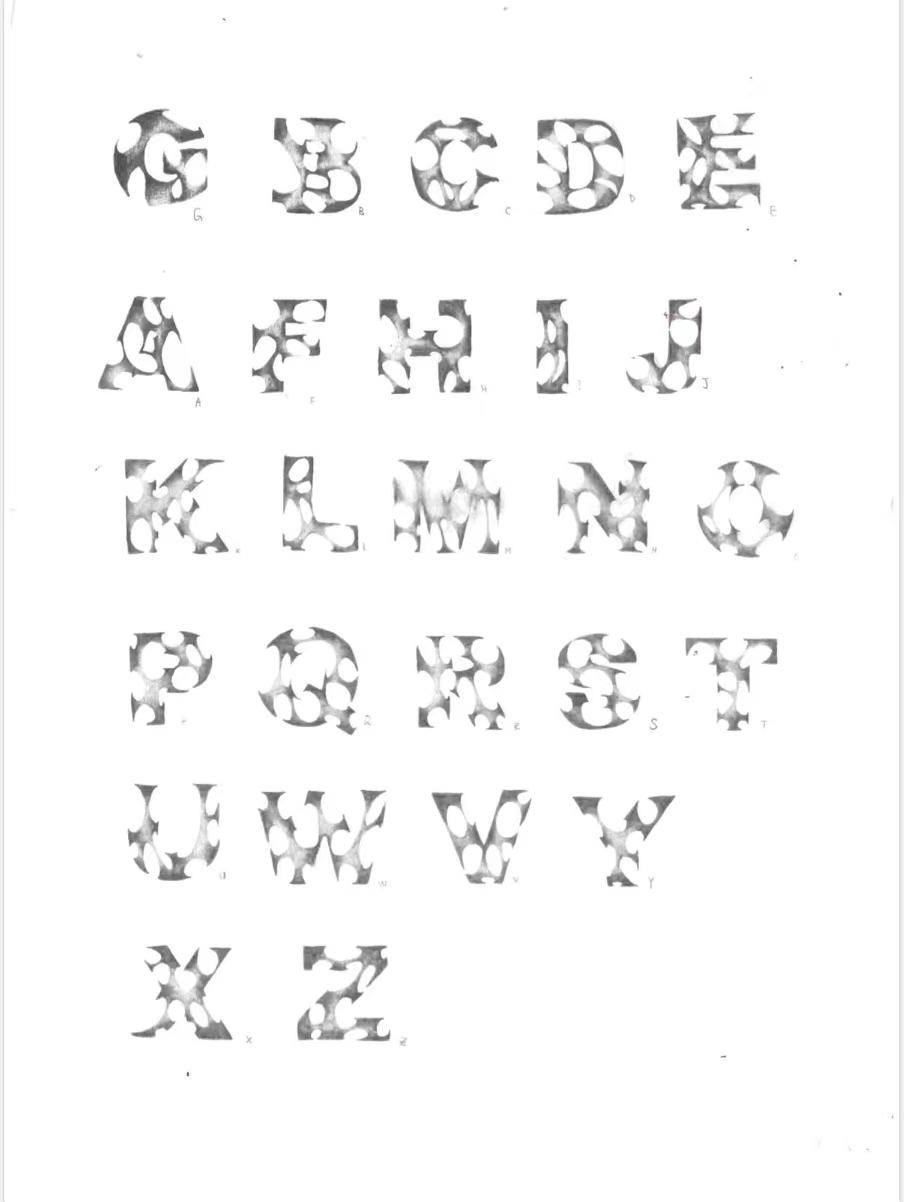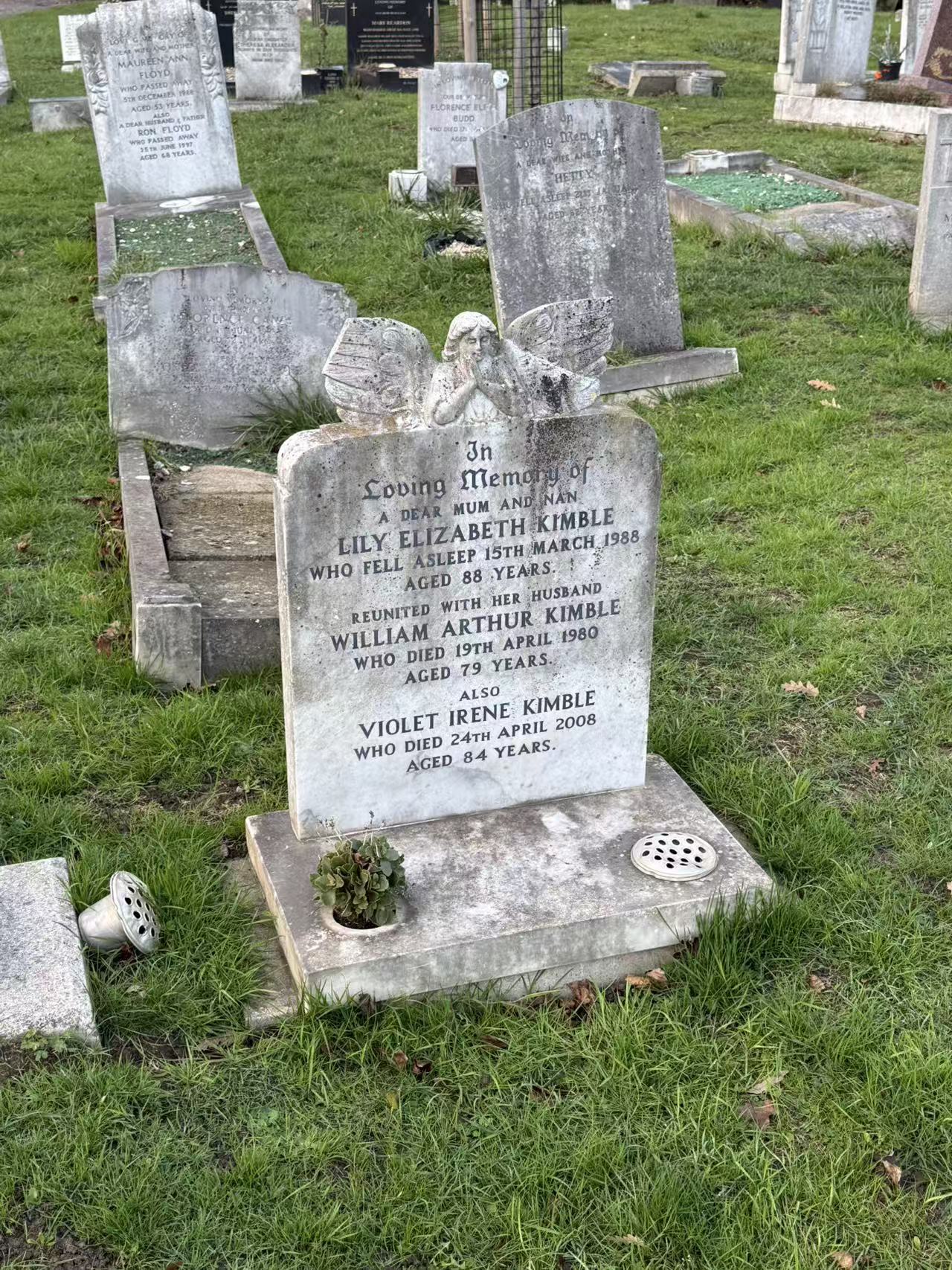
Lilysoul is a typeface inspired by the gravestones of Nunhead Cemetery. My design is primarily influenced by the marks left by weathering on the stone surfaces. Within a fixed letter structure, I introduced internal cut-outs. These openings are mostly circular, with some slightly sharp edges left intentionally. To me, the weathering of gravestones happens slowly and naturally, resulting in softened, rounded forms. This led me to choose circular shapes, which feel organic, rather than rigid rectangles that suggest deliberate, human-made cutting. I wanted to show how time leaves marks on stone and on emotion. At the same time, I wanted to capture the quiet tension that lives within calmness.